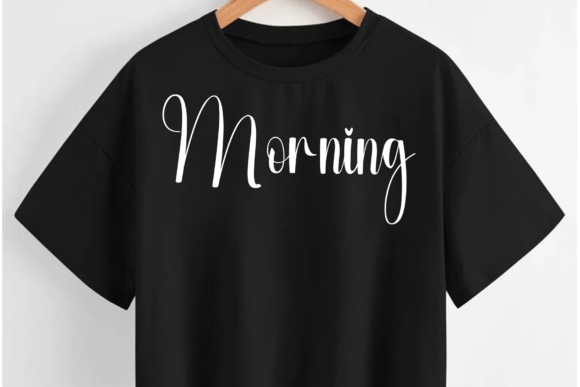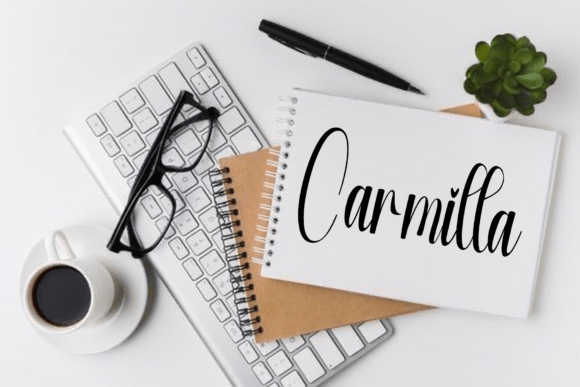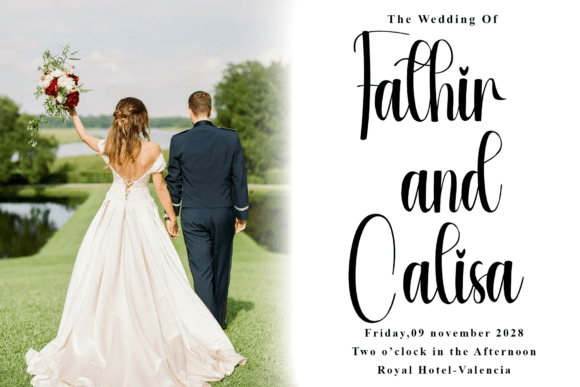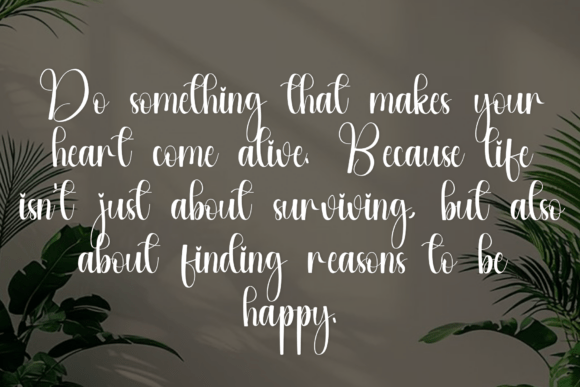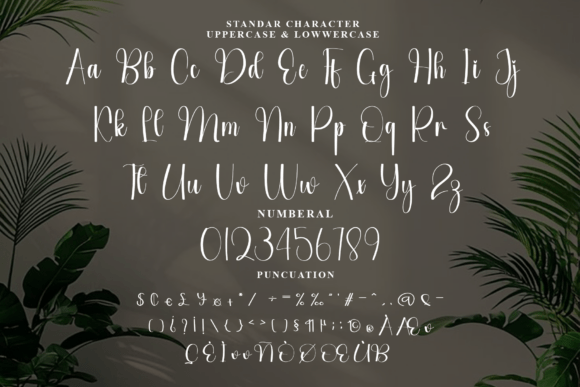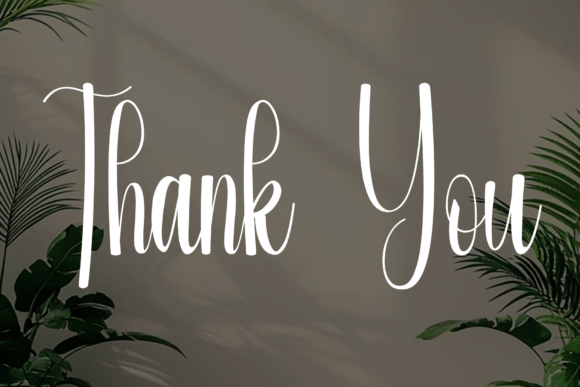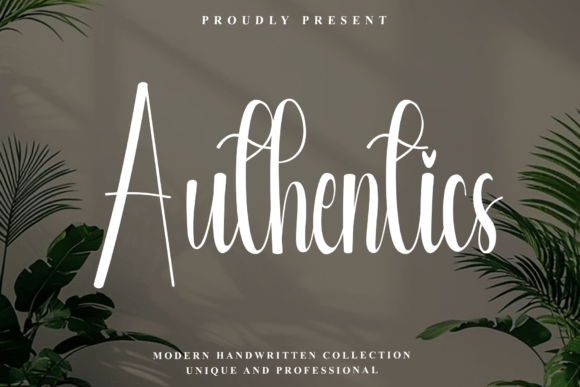
Discover the Elegance of Authentics Font: A Modern Handwritten Marvel
In the realm of typography, few fonts manage to strike a balance between uniqueness, professionalism, and elegance. However, the Authentics Font stands out as a remarkable exception, offering a fresh and refined aesthetic that is both captivating and versatile. Designed to evoke a sense of clarity and crisp elegance, Authentics is a modern handwritten font that brings a subtle sophistication to various design projects.
The Distinctive Features of Authentics Font
Authentics Font is characterized by its tall, thin strokes and a subtle, airy slant, which collectively contribute to its distinctive and refined look. This elegant design makes it an excellent choice for projects requiring a touch of sophistication and modernity. The clean and approachable style of Authentics ensures that it can be seamlessly integrated into a wide range of applications, from travel photography and outdoor gear branding to sophisticated web design.
Ideal Applications for Authentics Font
The versatility of Authentics Font makes it suitable for various design needs. Some of the ideal applications include:
- Travel Photography: The font’s clean and elegant appearance makes it perfect for travel photography, where clarity and a sense of adventure are paramount. It adds a sophisticated touch to photo captions, titles, and descriptions, enhancing the overall visual appeal.
- Outdoor Gear Branding: For brands related to outdoor gear and equipment, Authentics offers a professional yet approachable feel. It helps in creating a strong brand identity that resonates with the target audience, conveying a sense of reliability and style.
- Sophisticated Web Design: In web design, the font’s readability and elegance make it an excellent choice for headings, titles, and even body text. It contributes to creating a seamless user experience, especially for websites focused on travel, fashion, and lifestyle.
Why Choose Authentics Font?
Choosing Authentics Font for your design projects comes with several benefits:
- Unique and Professional: It offers a unique and professional look that sets it apart from more traditional fonts.
- Versatility: Its clean and approachable style allows it to be used across various platforms and design applications.
- Elegance and Clarity: The font provides a crisp elegance and clarity, making it easy to read and visually appealing.
How to Use Authentics Font Effectively
To maximize the impact of Authentics Font in your designs, consider the following tips:
- Pair it with Complementary Fonts: For optimal readability and aesthetic appeal, pair Authentics with complementary fonts that match its elegance and simplicity.
- Adjust Letter Spacing: Fine-tune the letter spacing to ensure that the text is easy to read and visually appealing.
- Use it for Headings and Titles: Take advantage of the font’s elegance by using it for headings and titles, where its unique and professional style can make a significant impact.
Authentics Font is a remarkable addition to the world of modern handwritten fonts, offering a unique blend of elegance, clarity, and professionalism. Its versatile design makes it an excellent choice for a wide range of applications, from travel photography and outdoor gear branding to sophisticated web design. By incorporating Authentics into your design projects, you can add a touch of sophistication and modernity that sets your work apart. Whether you’re a designer, a crafter, or simply someone with a passion for typography, Authentics Font is sure to inspire and elevate your creative endeavors.